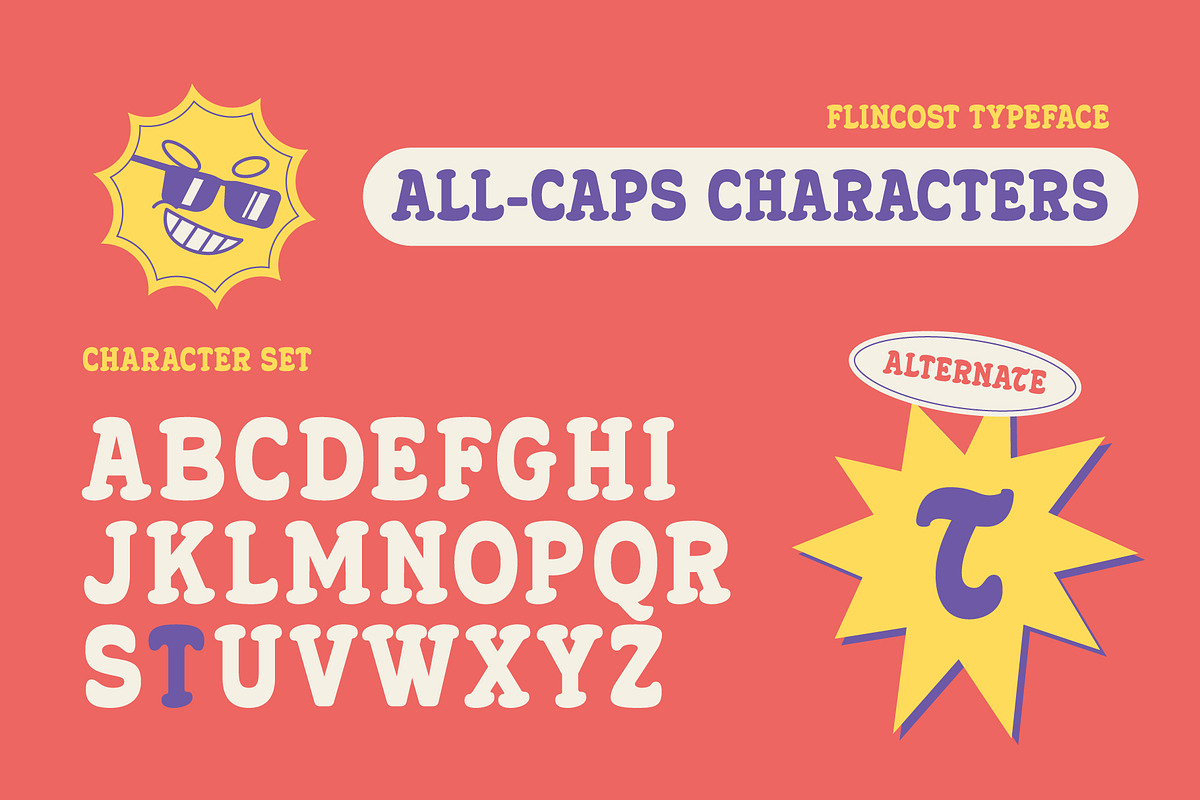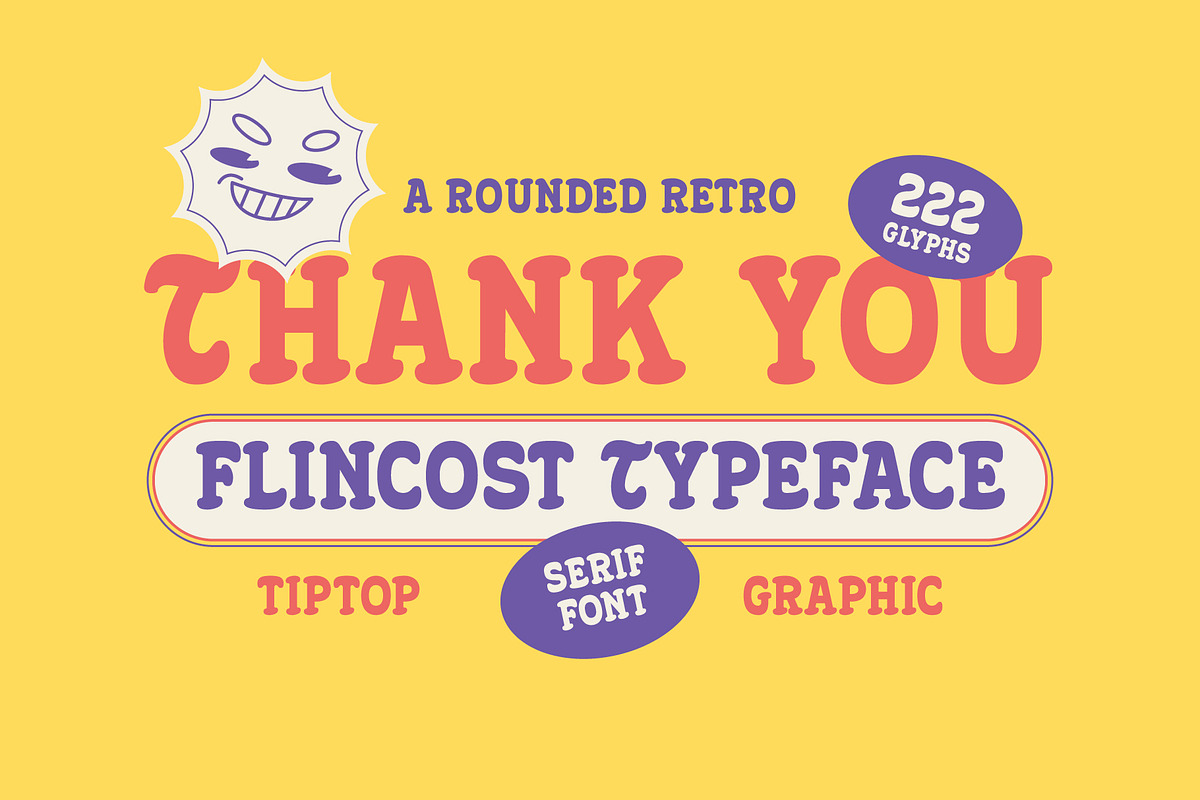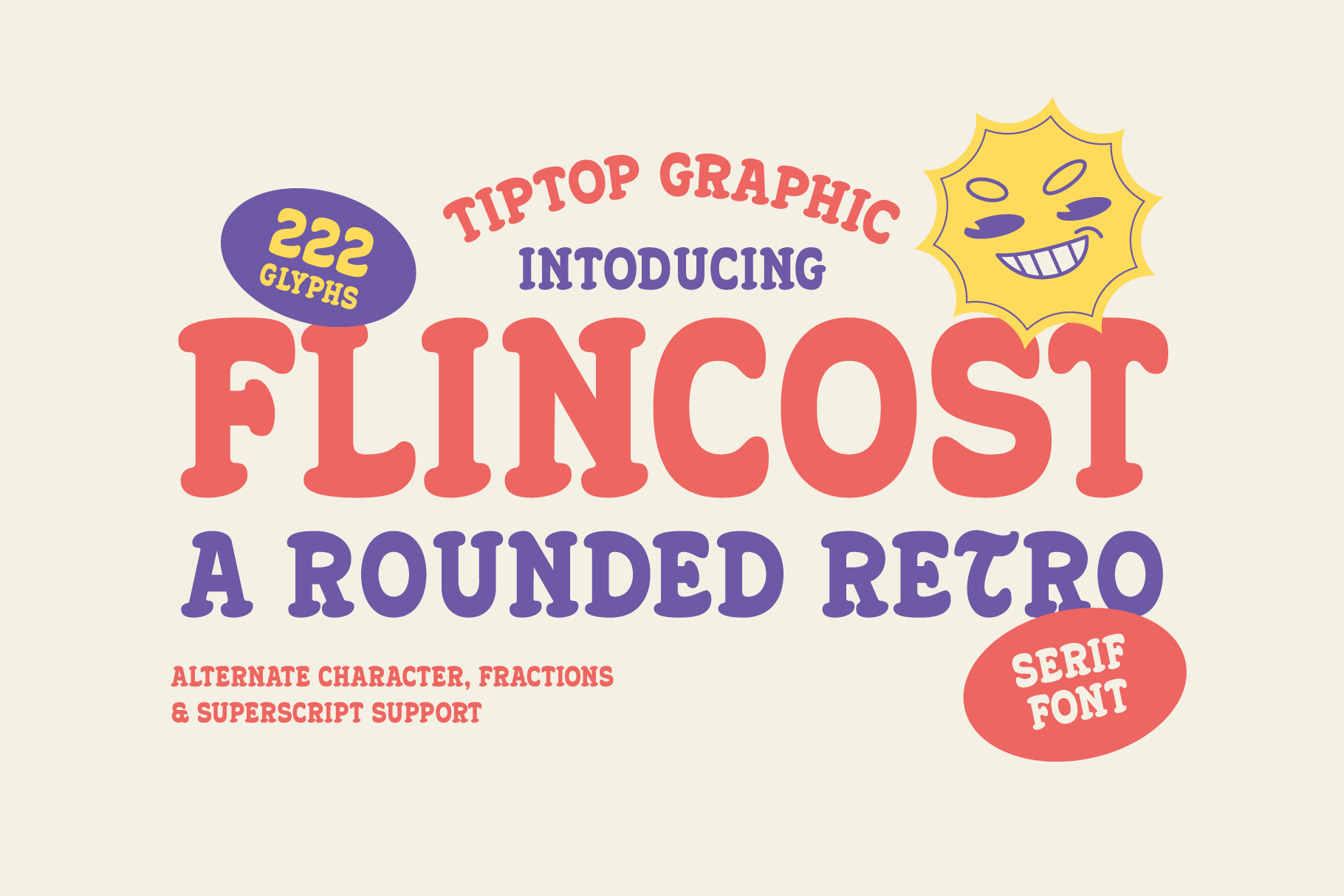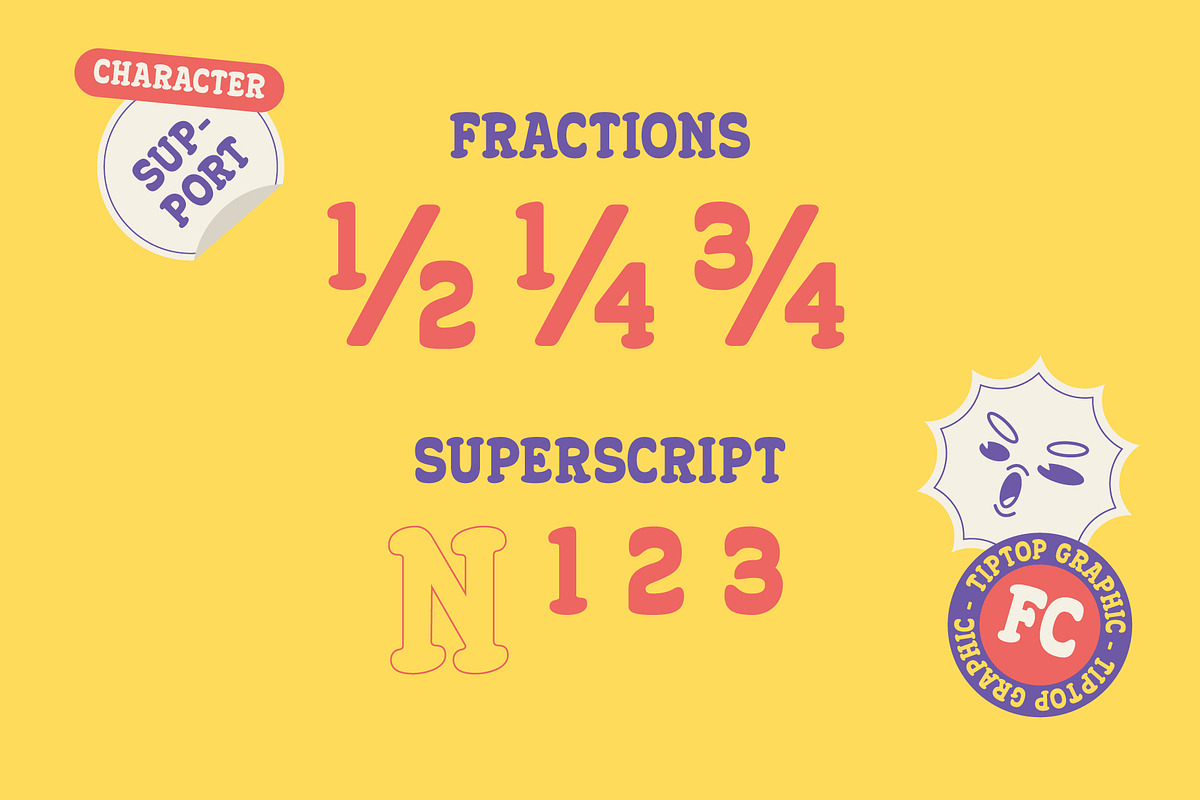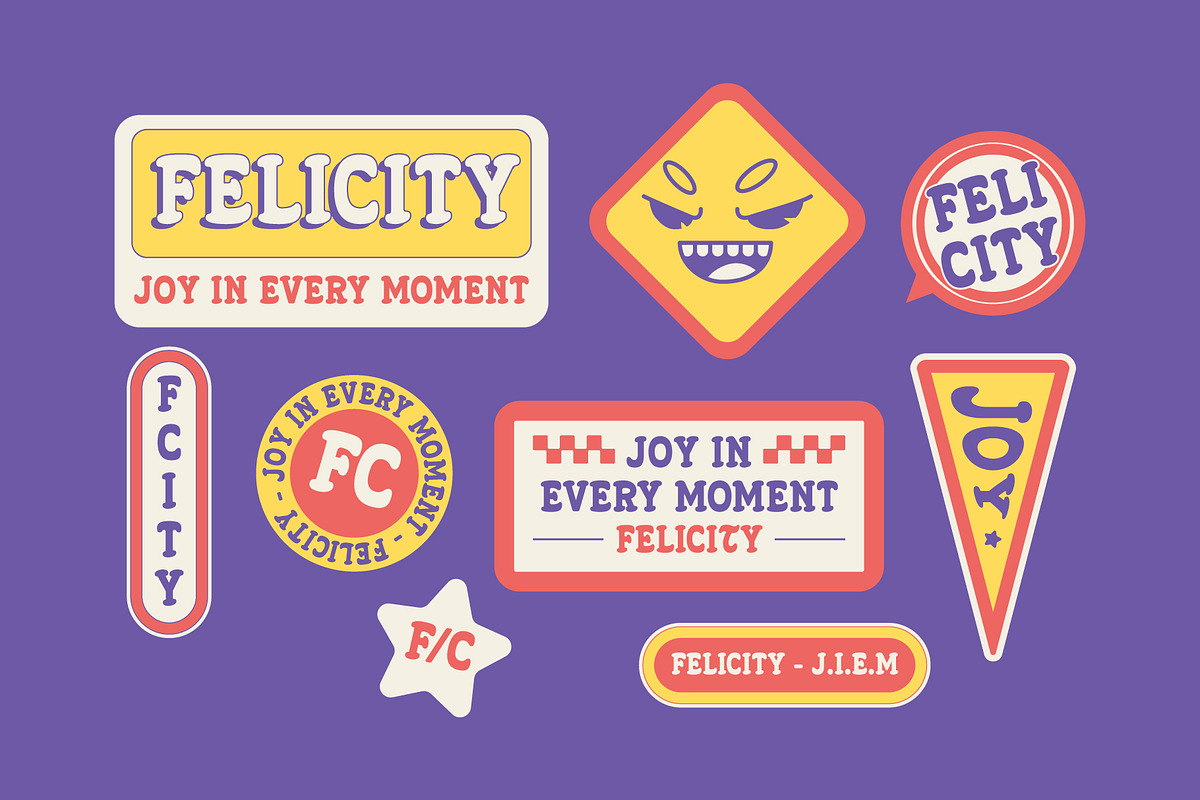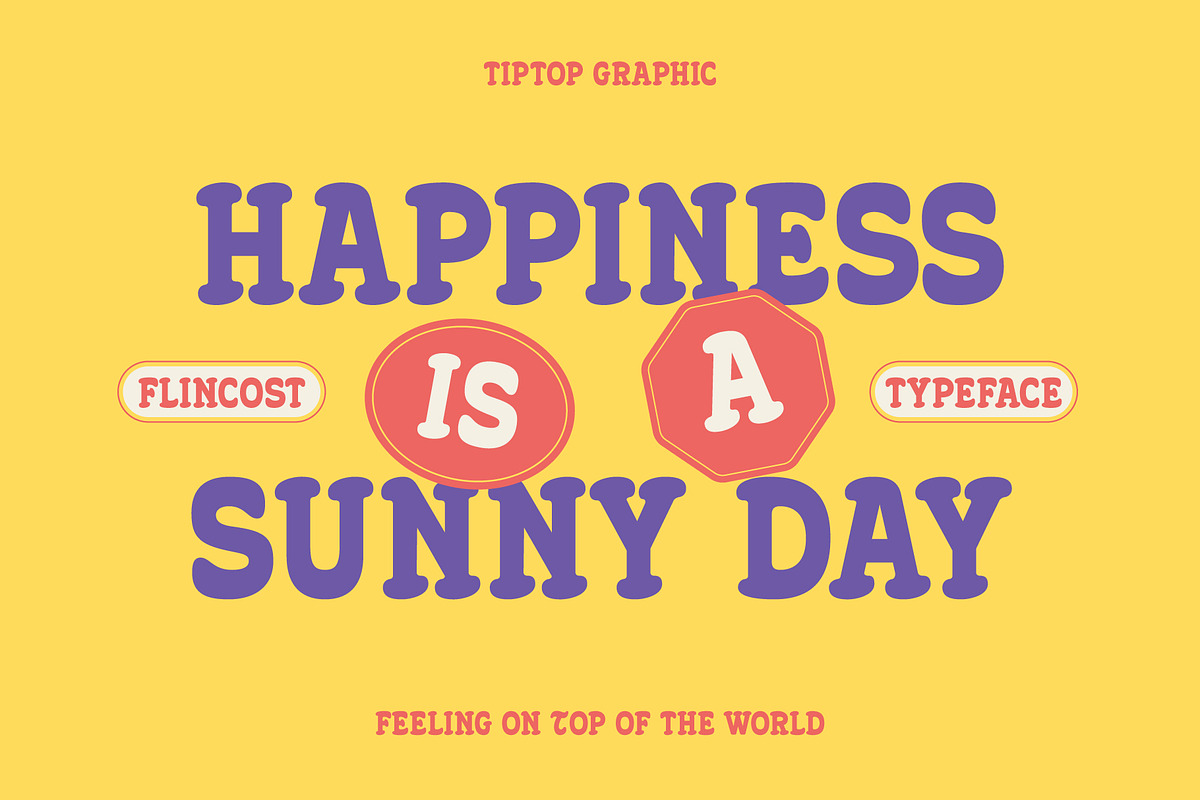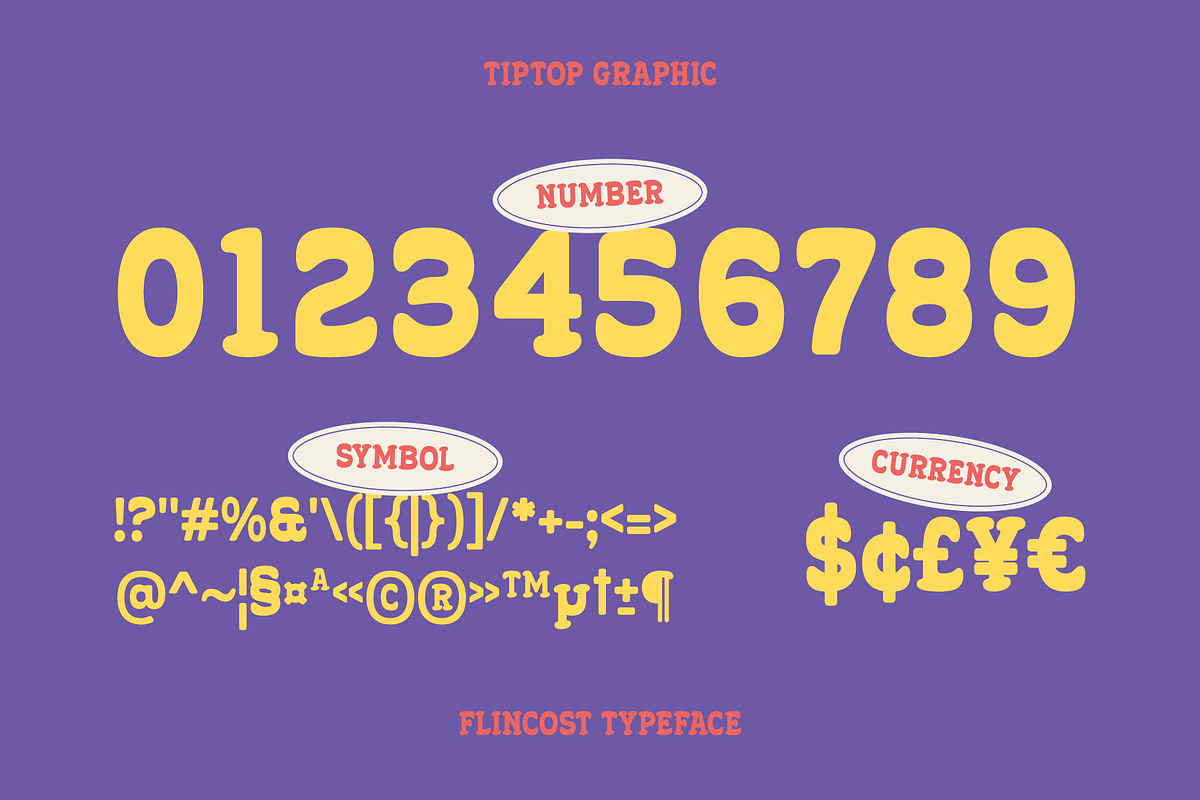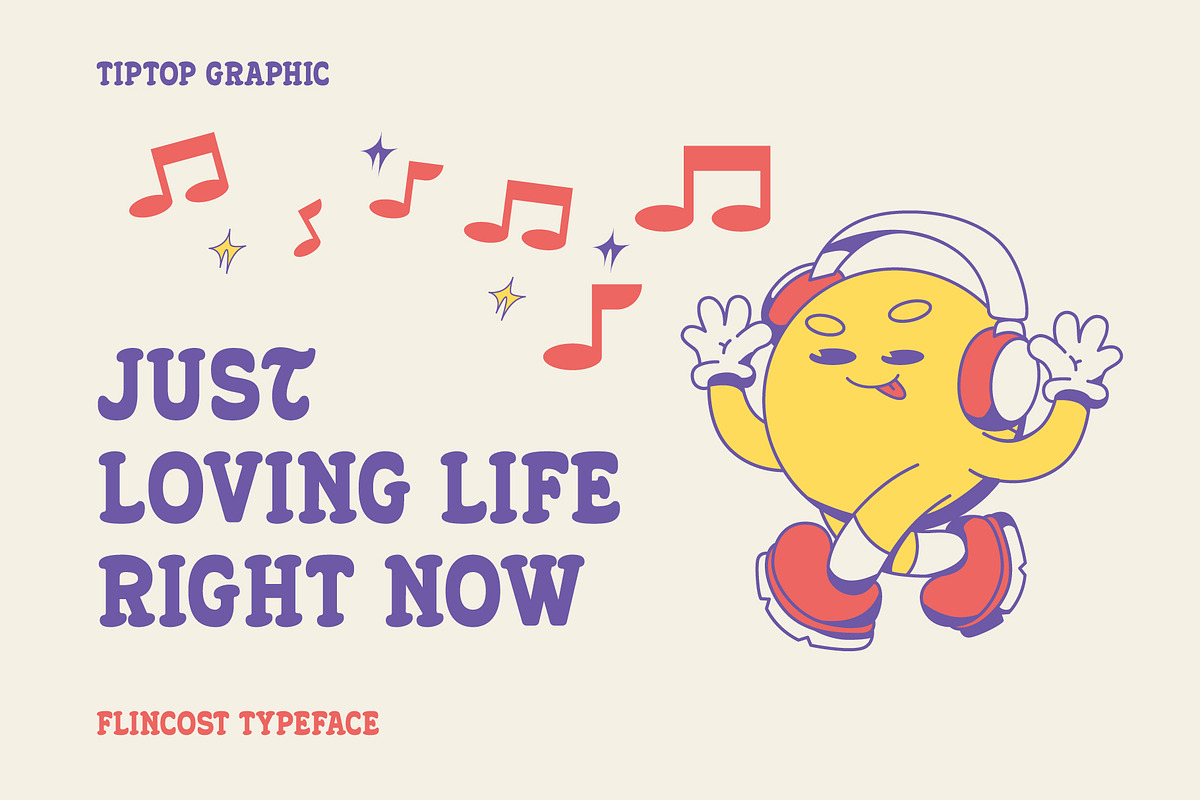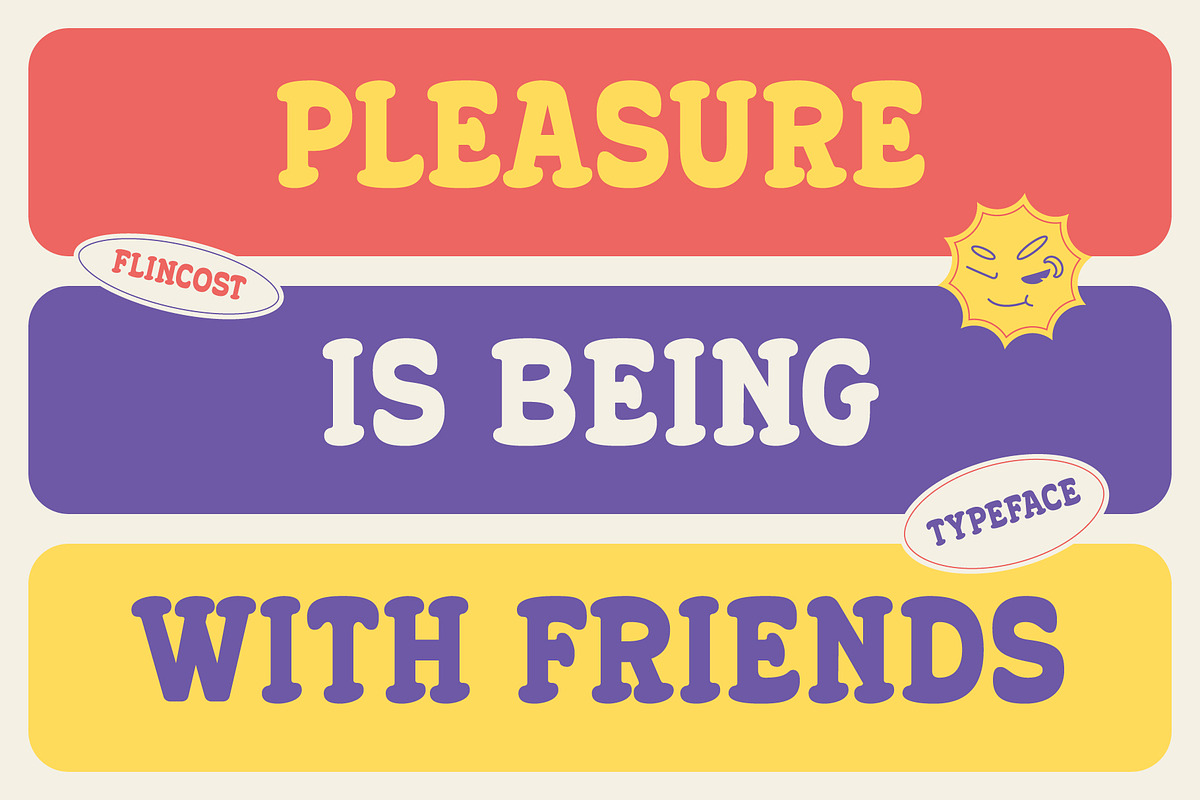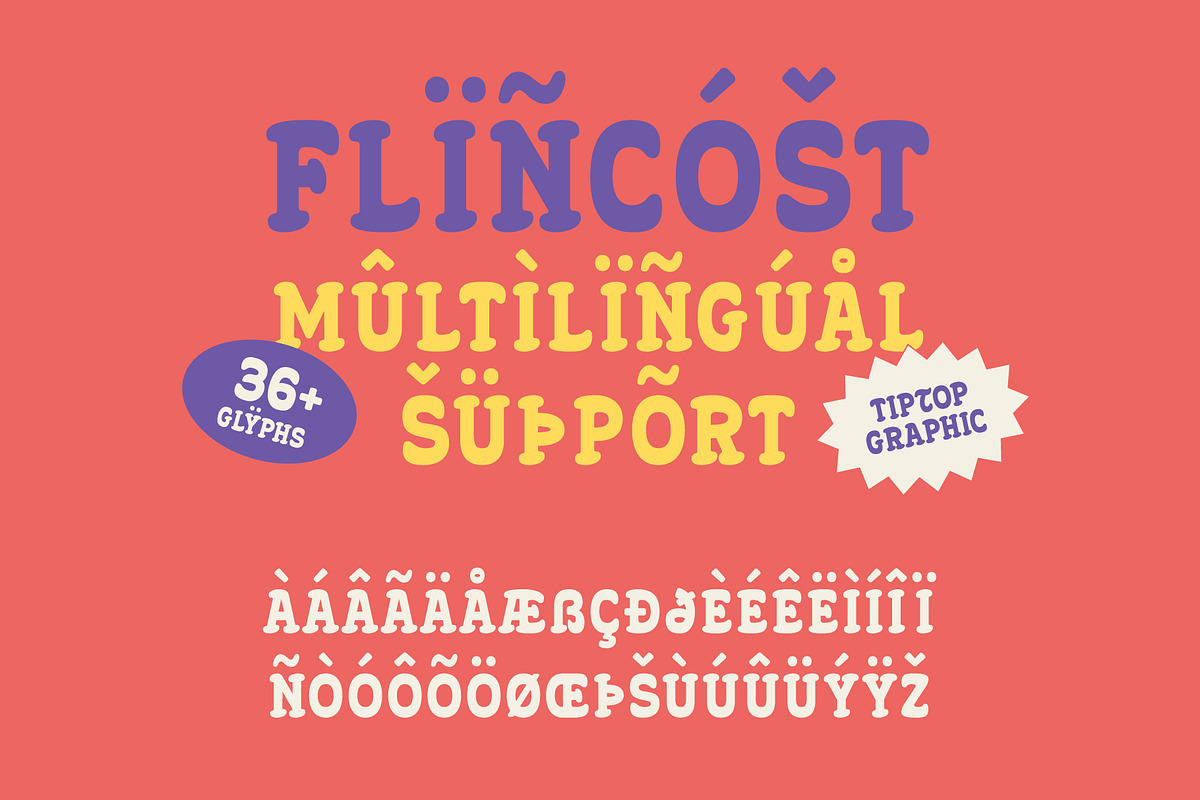
Flincost – Rounded Retro Font
Flincost a delightful blend of nostalgia and modernity that brings your creative projects to life. This charming font captures the essence of Retro – Candy Design packaging with it’s smooth, rounded edges and playful curves. Perfect for adding a touch of vintage flair to any design, Flincost is ideal for posters, logos, branding, and even children’s books. Transform your projects into a visual treat with Flincost, where every character tells a sweet story!
Flincost features:
- Character Set (All Caps)
- Punctuation & Numbers
- Alternates “T”
Elevate and explore the design possibilities with this Retro – Candy Design Font!